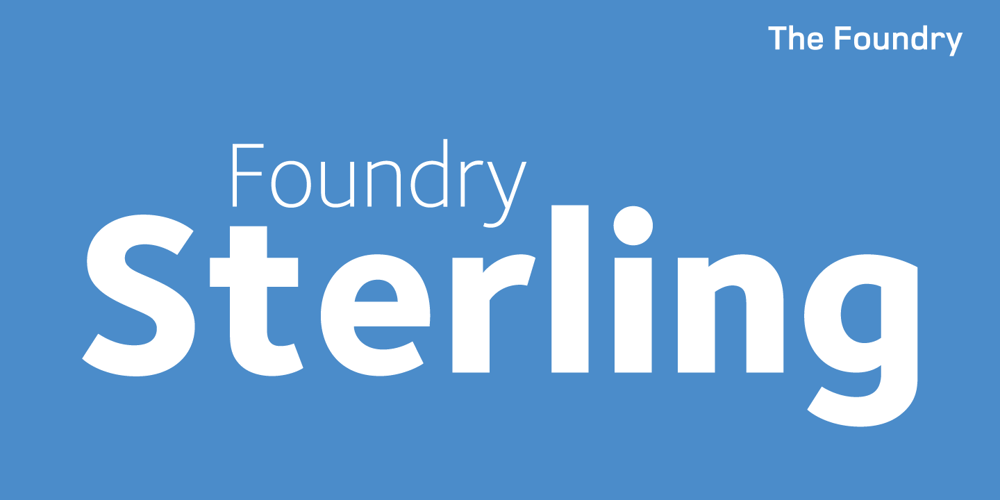
Foundry Sterling Font Family was designed by Freda Sack, David Quay, Stuart De Rozario and published by The Foundry. Foundry Sterling contains 7 styles and family package options. Foundry Sterling is a functional and eloquent typeface family that has its origins in the desire to create a modern sans design with a quintessentially English flavour. The letterforms have been designed with particular attention to classical proportion and purity of form, resulting in the creation of a functional yet graceful typeface with elegant beauty. Foundry Sterling is an eminently versatile font with a carefully chosen weight range equally applicable to identity, editorial and signage use.